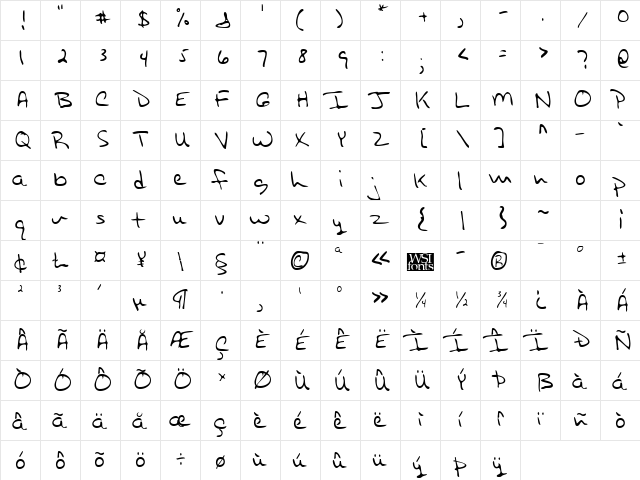
SammysHand Regular
Design Context for SammysHand Typeface
SammysHand flows with the natural rhythm of handwritten lettering, making it ideal for designs that call for warmth and personal expression.
Font Pairing: Combine SammysHand with a simple geometric sans for maximum contrast — the tension between flowing curves and clean structure is a classic typographic pairing.
Pro Tip: Pair SammysHand with a clean sans-serif for supporting text. The contrast between fluid script and geometric structure creates an elegant typographic hierarchy.